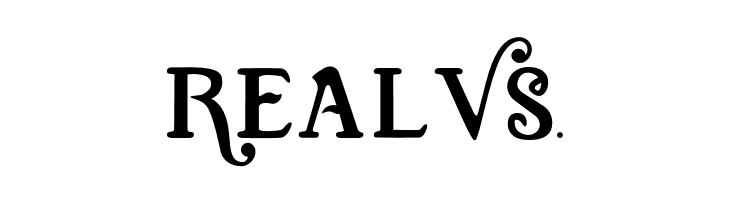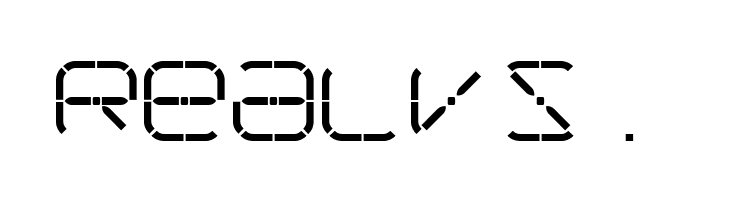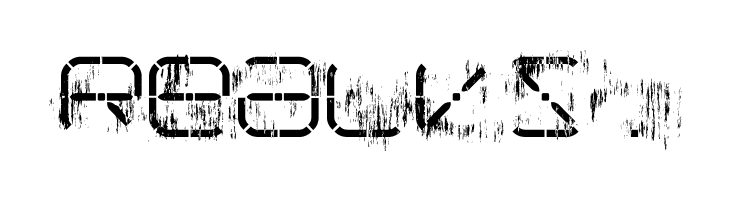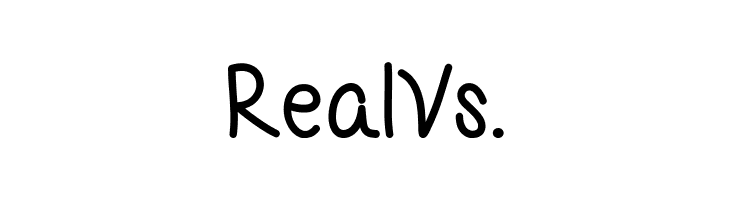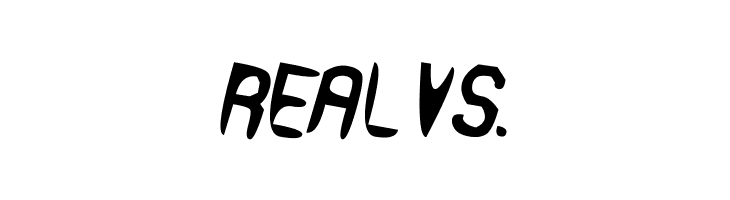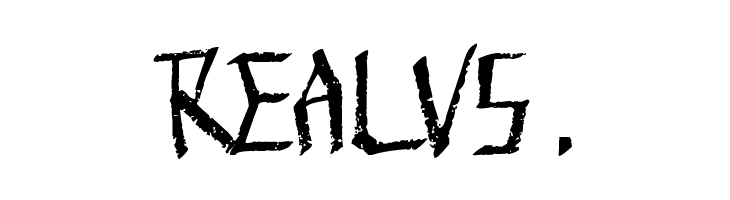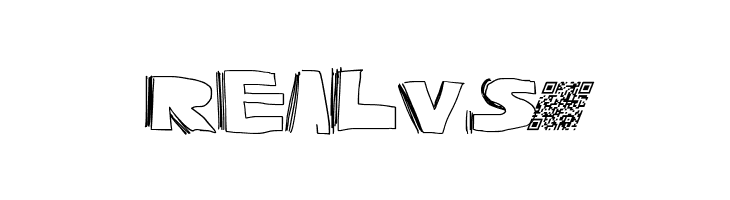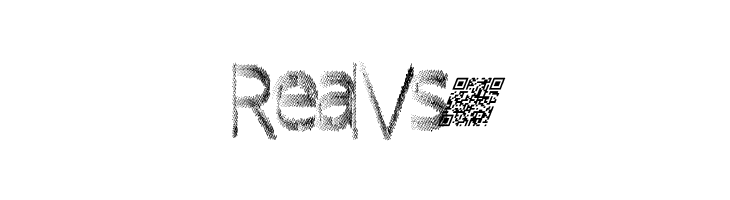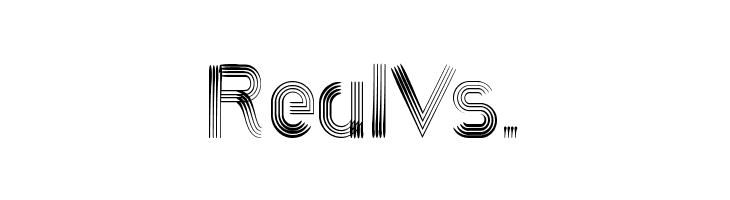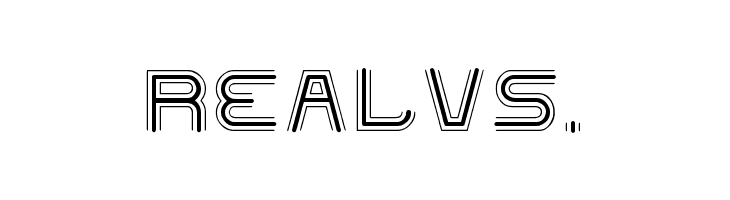
A bold, brush-style font with an energetic and handcrafted appearance.
A modern, geometric font with clean lines and a futuristic feel.
A futuristic, geometric font with layered lines and bold, angular shapes.
A playful, casual handwritten font with smooth, flowing lines.
A bold, sketch-like font with a playful, three-dimensional style.
A bold, distressed font with a rugged, vintage appearance.
A pixelated, monospaced font with a retro digital style.
A modern, multi-line font with a dynamic and artistic style.
A graceful script font with flowing, cursive strokes and a refined appearance.
A bold, geometric font with thick, uniform strokes for impactful text.
A bold, playful font with a dynamic, distorted style.
A modern, textured sans-serif font with a fading effect.
A bold, decorative font with a three-dimensional lined effect.
A playful, bold font with a hand-drawn, whimsical style.
A distressed, vintage-style font with bold, textured characters.
A casual, handwritten font with a dynamic and energetic style.
A geometric, hollow font with a modern and futuristic style.
A geometric, hollow, and italic display font with a futuristic style.
A bold, angular, and geometric font with a dynamic slant.
A playful, hand-drawn font with a quirky, informal style.
A bold, expressive, hand-drawn font with a brush-like, graffiti-inspired style.
A decorative font with whimsical swirls and vintage flair.
A futuristic, segmented font with a digital, LED-inspired design.
A bold, eroded font with a gritty, vintage appearance.
A bold, italicized font with a geometric and angular design.
A bold, geometric font with an industrial, signage-inspired design.
A bold, italicized font with a modern, angular design.
A bold, narrow, italicized font with a modern, angular design.
A geometric, narrow outline font with a modern, technical style.